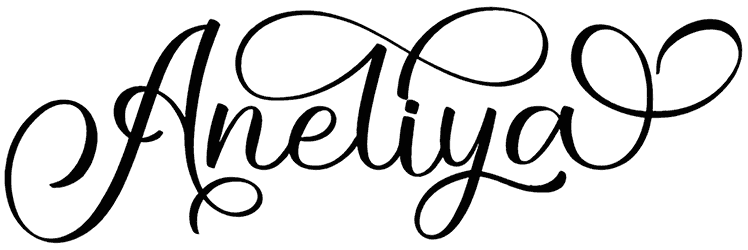
Aneliya Font
Are you looking for a font that, while writing content, adds an aesthetic element and does not require spending time? Aneliya is what you are looking for. This calligraphy font has rounded edges with intricate curves that look great for a love letter or on fancy product packaging.
The appearance of this feminine font can remind you of old houses in Disney animations, which will create a nostalgic feeling in your projects.